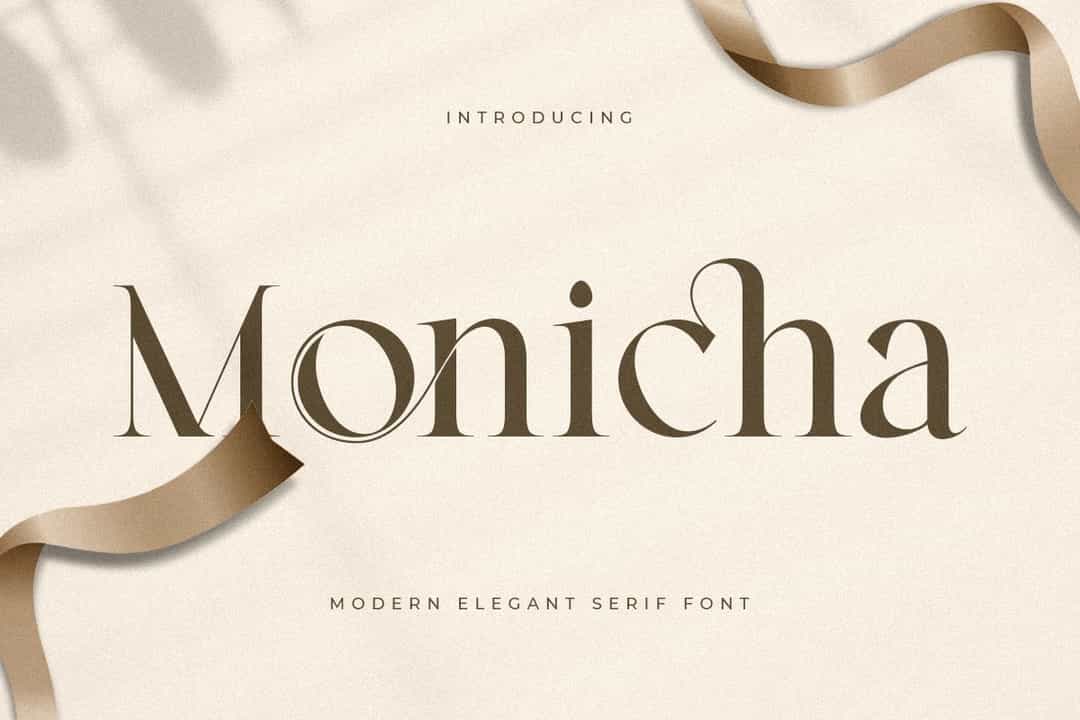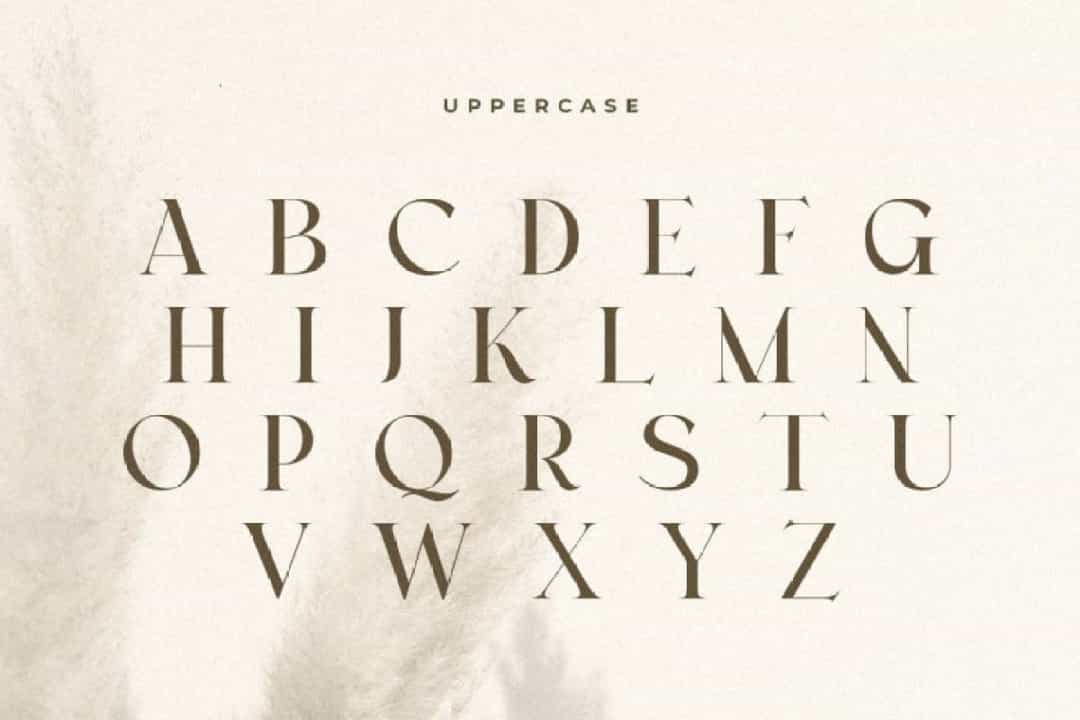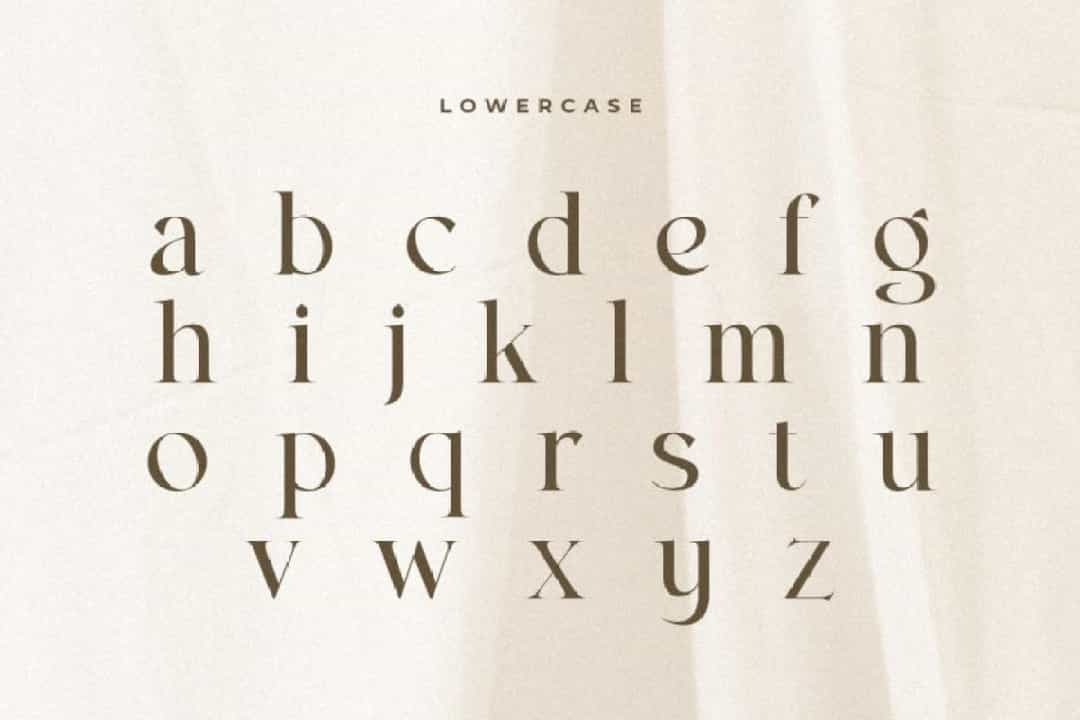
Monicha is a sophisticated and a such cool serif font that combines straight strokes with soft rounded corners to create a very current appearance. A perfect typeface for editorial designs, luxury branding, and web typography, this typeface adds elegance to every design it is incorporated in. Use Monicha for that contemporary chic look in your creative designs.